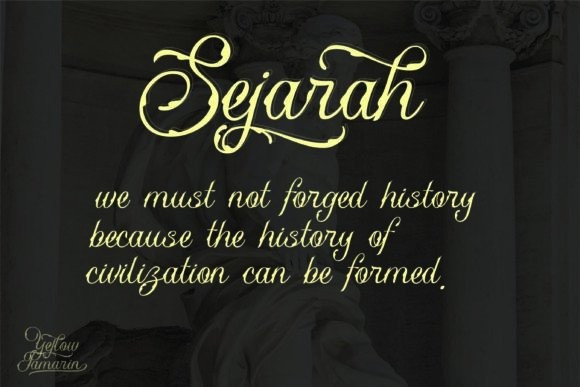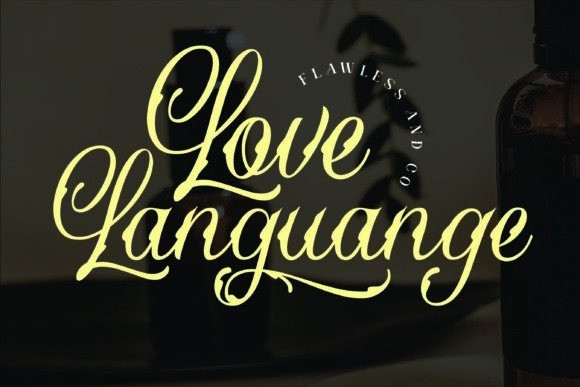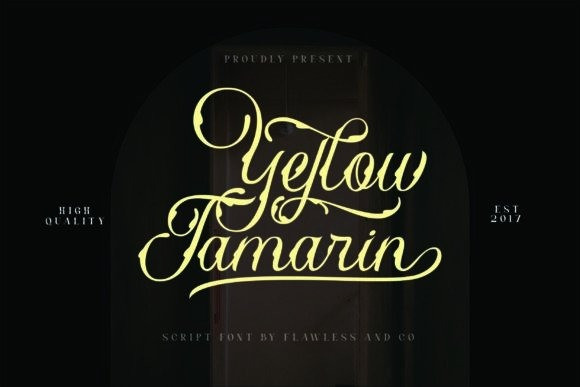
Yellow Tamarin Font
Yellow Tamarin Font is a display font, also a yellow font with decorative elements and a metal or tattoo-inspired look. This makes it a highly unique and versatile font, with many potential uses in design. The decorative and metal-inspired elements of the font can give a design an edgy, bold feel, while the yellow color adds a bright and cheerful touch. It is also PUA encoded which means you can access all of the glyphs and swashes with ease!